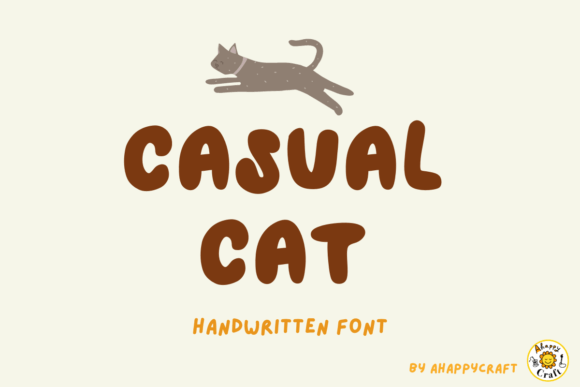
The Purrfect Font: A Deep Dive into Casual Cat
I’ll never forget the time I was working on a project for a client’s cat cafe website. I had all the design elements ready – the colors, the layout, the adorable cat images – but I was stuck on finding the right font. The client wanted something friendly, approachable, and fun, but not too playful or childish. I scoured the internet, tried out dozens of fonts, but nothing seemed quite right. That was until I stumbled upon Casual Cat, a sweet and friendly handwritten display font that instantly captured the tone I was looking for.
An Honest Review of Casual Cat
So, what makes Casual Cat so special? Let’s dive into the good stuff and a few quirks I’ve discovered.
- ✨ Unique and Natural Style: Casual Cat has a one-of-a-kind look that’s both natural and eye-catching. It’s perfect for designs that need a personal touch.
- ✅ Versatility: This font can be used for a wide range of projects, from branding and advertising to packaging and web design. The only limit is your imagination!
- 💫 Easy to Read: Despite its unique style, Casual Cat is surprisingly easy to read, making it perfect for headlines, titles, and short paragraphs.
While Casual Cat is an amazing font, there are a few things to keep in mind:
- ⚠️ Legibility at Small Sizes: Like many handwritten fonts, Casual Cat can become a bit tricky to read at very small sizes. It’s best used for headlines, titles, or short text.
- 🤔 Limited Formality: Casual Cat is, by design, a casual font. It might not be the best fit for very formal or professional projects that require a more serious tone.
One of the standout features of Casual Cat is its support for OpenType features and glyphs. These can add an extra layer of customization to your text:
- Stylistic Alternates: Swap out certain letters or symbols for stylistic variations.
- Ligatures: Combine certain letter pairs for a more fluid look.
- Glyphs: Access special characters or alternate forms of letters.
Exploring these features can help you get the most out of Casual Cat and truly make your design stand out.
The Backstory of Casual Cat
While the origins of Casual Cat might be shrouded in mystery, it’s easy to imagine a designer sitting with their feline friend, brainstorming ideas for the perfect font. Perhaps they wanted to capture the friendly, curious nature of cats in a font that’s both stylish and approachable. Whatever the inspiration, Casual Cat has undoubtedly captured the hearts of designers and hobbyists alike.
Q: Is Casual Cat suitable for body text?
A: While Casual Cat is easy to read, it’s primarily designed for headlines and titles. For longer body text, a more traditional font might be more suitable.
Q: Does Casual Cat support multiple languages?
A: The character set of Casual Cat should cover basic English and some other Western European languages, but it’s always best to check for specific language support.